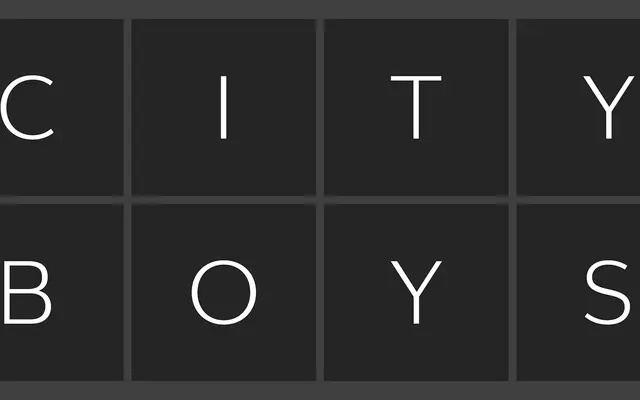
City Boys specimen from Dharma Type
A contrasted sans-serif with a humanist lean and vertical stress, offered in seven weights with matching italics for screen and print work.
Built on a well-balanced skeleton, City Boys combines vertical stress with a modest contrast ratio intended to hold up at small sizes across both screen and print. Seven weights run from Thin to Black, each with a matching italic, giving the family enough range for headings, body text and branding. A companion subfamily, City Boys Soft, offers the same structure with rounded corners for a softer register.
Described as leaning slightly humanist with vertical stress and careful contrast calibration, placing it at the intersection of humanist sans and rational sans traditions.